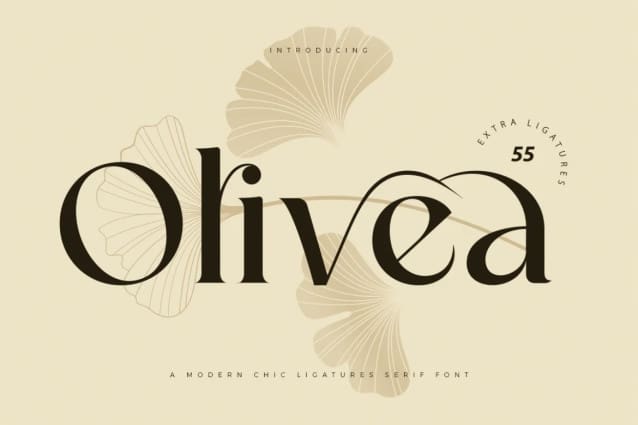
Olivea Font
Olivea Font – It’s A Modern Chic Ligatures Font. Coming with 55 Ligatures Collection. A modern serif font designed to elevate your projects with sophistication and style. With its sleek lines and subtle curves, Olivea exudes elegance and versatility, making it perfect for everything from branding to editorial design.
Very suitable for logo, branding project, magazine, headline, website, ads, product package and all type of design project you have.